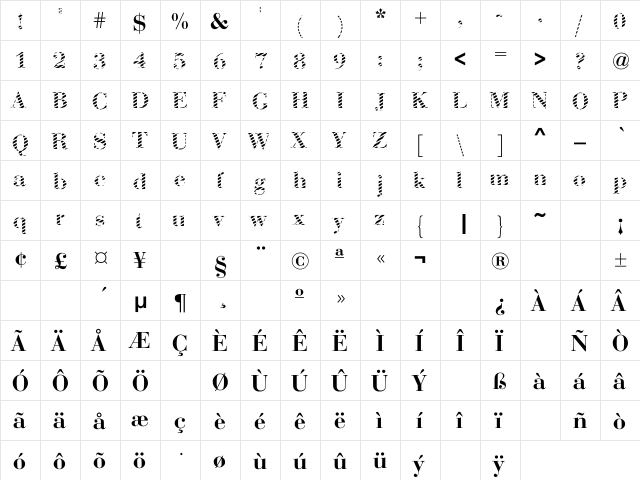
ABCTech Bodoni Stripe2 Regular
Design Context for ABCTech Bodoni Stripe2 Typeface
ABCTech Bodoni Stripe2 channels digital-age aesthetics through its sharp, structured letterforms — ideal for brands that want to signal innovation.
Pro Tip: Use ABCTech Bodoni Stripe2 in combination with a neutral sans for body text. Let it define the brand voice in headlines while keeping reading comfortable elsewhere.